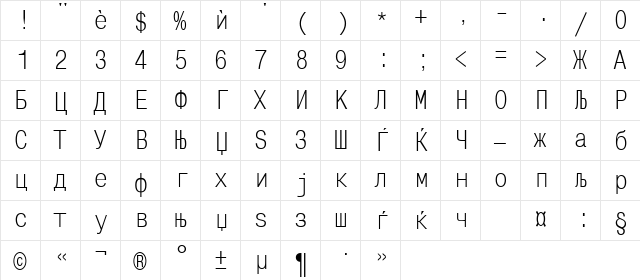
Macedonian Gothic Regular
Design Context for Macedonian Gothic Typeface
Macedonian Gothic has the quiet confidence of well-executed sans-serif typography: versatile, unobtrusive, and dependable at any size.
Font Pairing: Works well alongside a characterful serif or display font that can carry the expressive load while Macedonian Gothic handles the functional copy.
Pro Tip: Pair Macedonian Gothic with a display or serif font for headlines — its neutral character makes it an excellent supporting player in complex typographic systems.